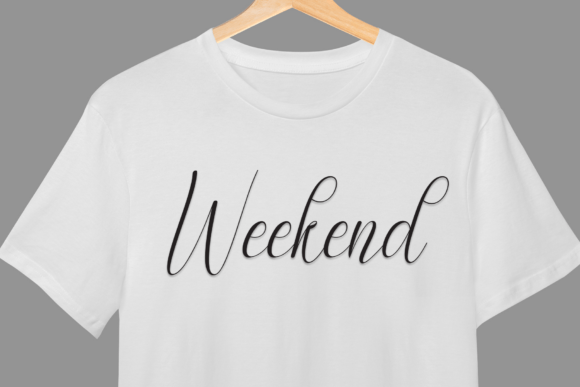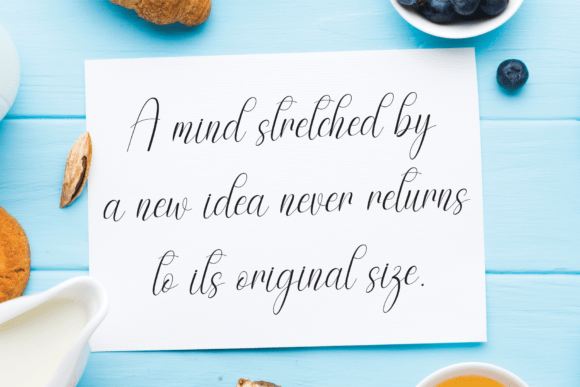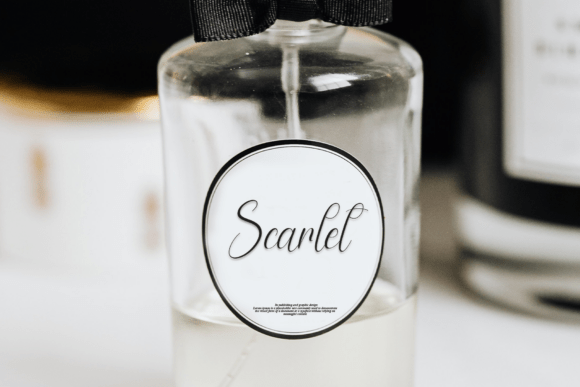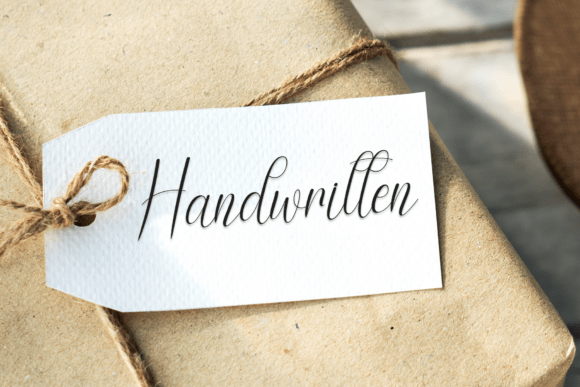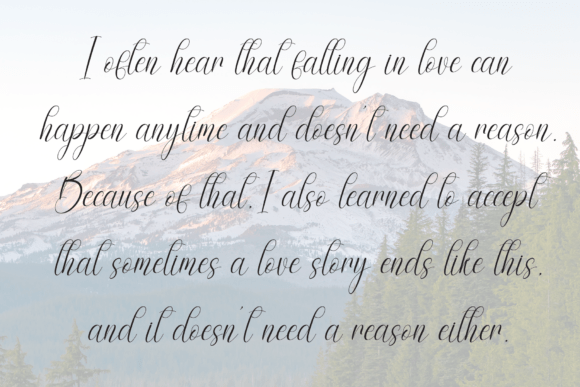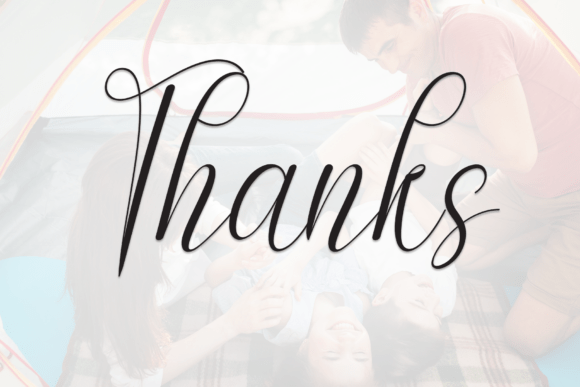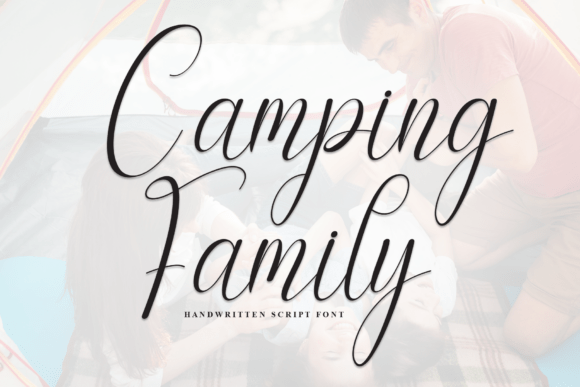
Camping Family Font: A Charming Handwritten Display Font
Are you looking for a font that can add a touch of warmth and sweetness to your designs? Look no further than the Camping Family Font, a charming handwritten display font that is perfect for crafting wedding invitations, greeting cards, and other designs that require a personal touch. In this article, we’ll take a closer look at the Camping Family Font and explore its features, benefits, and uses.
What is Camping Family Font?
The Camping Family Font is a handwritten display font that is designed to evoke a sense of warmth and sweetness. Its charming and playful undertones make it perfect for designs that require a fun and invigorating touch. Whether you’re a designer, crafter, or DIY enthusiast, this font is sure to become a favorite in your collection.
Features of Camping Family Font
The Camping Family Font has several features that make it stand out from other fonts. Some of its key features include:
- Handwritten style: The Camping Family Font has a beautiful, handwritten style that gives it a personal and unique touch.
- Charming and playful undertones: The font has a fun and playful vibe that makes it perfect for designs that require a lighthearted touch.
- High-quality design: The font is designed with high-quality craftsmanship, ensuring that it looks great in any design.
- Easy to read: Despite its playful undertones, the Camping Family Font is easy to read, making it perfect for body text and headlines.
Benefits of Using Camping Family Font
There are several benefits to using the Camping Family Font in your designs. Some of the benefits include:
- Unique and personalized designs: The Camping Family Font allows you to create unique and personalized designs that stand out from the crowd.
- Emotional connection: The font’s charming and playful undertones help to create an emotional connection with your audience, making your designs more relatable and engaging.
- Versatility: The Camping Family Font is versatile and can be used in a variety of designs, from wedding invitations to greeting cards and more.
Uses of Camping Family Font
The Camping Family Font is perfect for a variety of designs, including:
- Wedding invitations: The font’s charming and playful undertones make it perfect for wedding invitations and other wedding-related designs.
- Greeting cards: The font is also great for greeting cards, adding a personal touch to your messages.
- Signs and banners: The Camping Family Font can be used to create eye-catching signs and banners for events, parties, and more.
- Social media graphics: The font is also perfect for social media graphics, adding a personal touch to your posts and updates.
Tips for Using Camping Family Font
Here are some tips for using the Camping Family Font in your designs:
- Use it sparingly: While the Camping Family Font is beautiful, it’s best to use it sparingly to avoid overwhelming your design.
- Pair it with other fonts: The font pairs well with other fonts, so feel free to experiment with different combinations.
- Experiment with colors: The Camping Family Font looks great in a variety of colors, so don’t be afraid to experiment and find the perfect color for your design.
The Camping Family Font is a charming handwritten display font that is perfect for designers, crafters, and DIY enthusiasts. Its unique and personalized style makes it perfect for a variety of designs, from wedding invitations to greeting cards and more. With its easy-to-use design and versatile features, the Camping Family Font is sure to become a favorite in your collection.